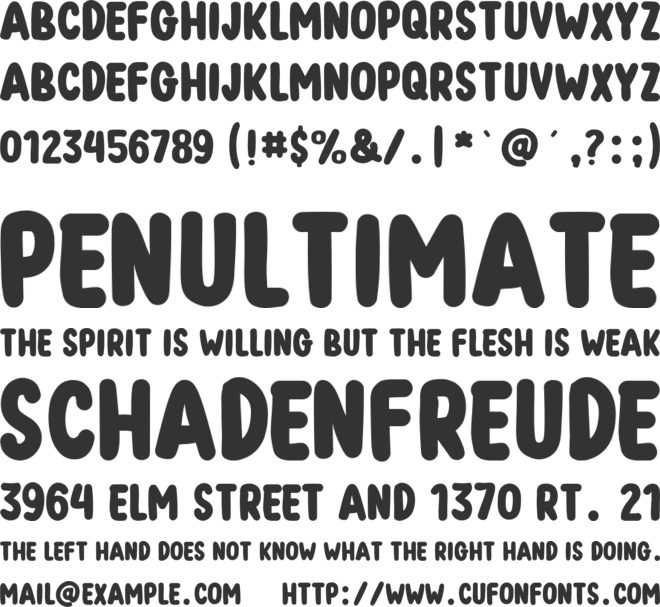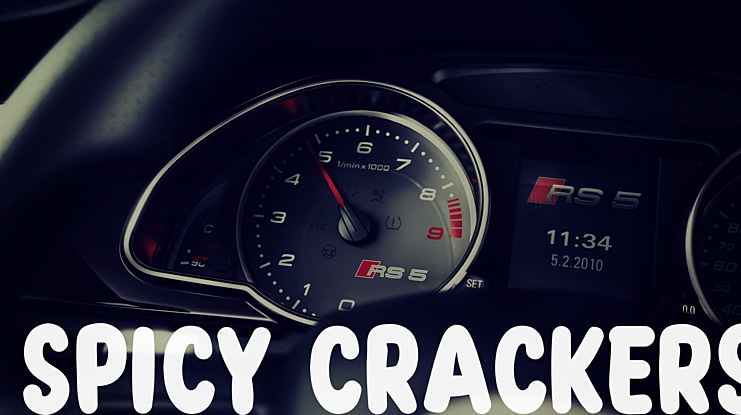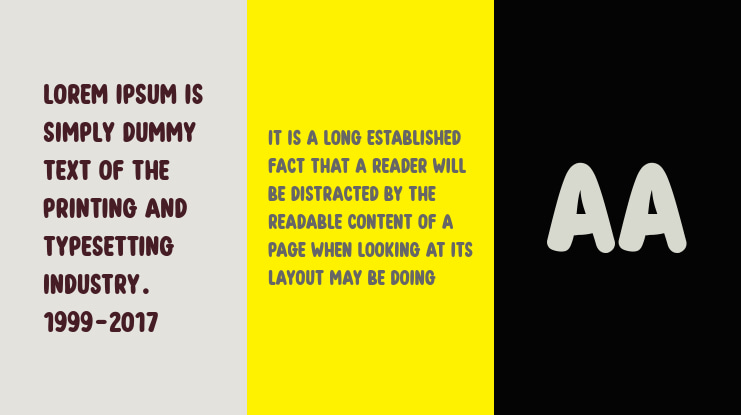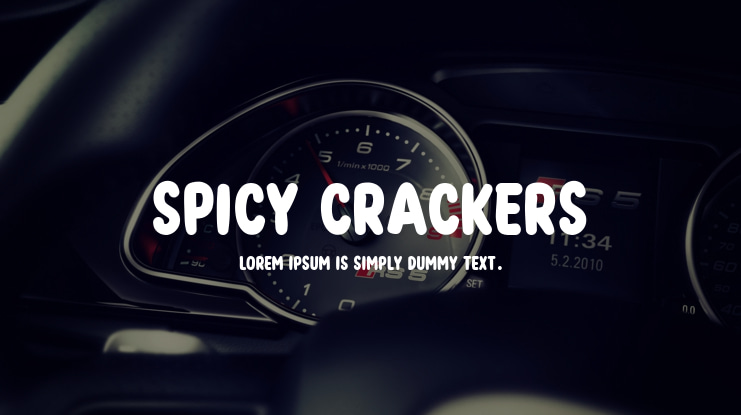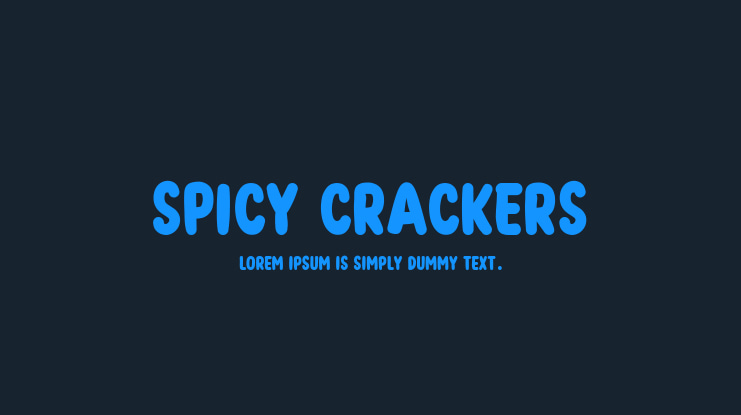
Spicy Crackers Font
Spicy Crackers is a cute, friendly and fun display font. Whether you’re using it for crafts, digital design, presentations, or making greeting cards, this font has the potential to become your favorite go-to font, no matter the occasion!